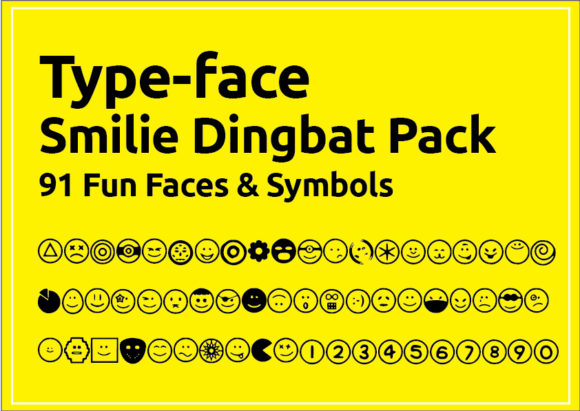
Welcome to the world of TypeFace Font, the ultimate dingbat font collection that will ignite your creativity and transform your digital designs. TypeFace Font isn't just a font, it's an expression of art, a language of symbols, a gateway to a world of boundless imagination.
Unleash your storytelling prowess with TypeFace Font, the font that speaks volumes without uttering a single word. Craft captivating social media posts that jump off the screen, weave intriguing blog articles that resonate with readers, or design eye-catching logos that leave a lasting impression.
Gone are the days of mundane text and lifeless designs. With TypeFace Font, every project you undertake transforms into a visual masterpiece. Let your imagination run wild as you create stunning flyers, brochures, and presentations that demand attention and leave a lasting impact.
With TypeFace Font, you're not just another designer; you're an artist, a visionary, leaving your unique mark on the digital world. Embrace the limitless possibilities and watch as your designs evolve into captivating experiences that engage, inspire, and leave your audience awe-struck.